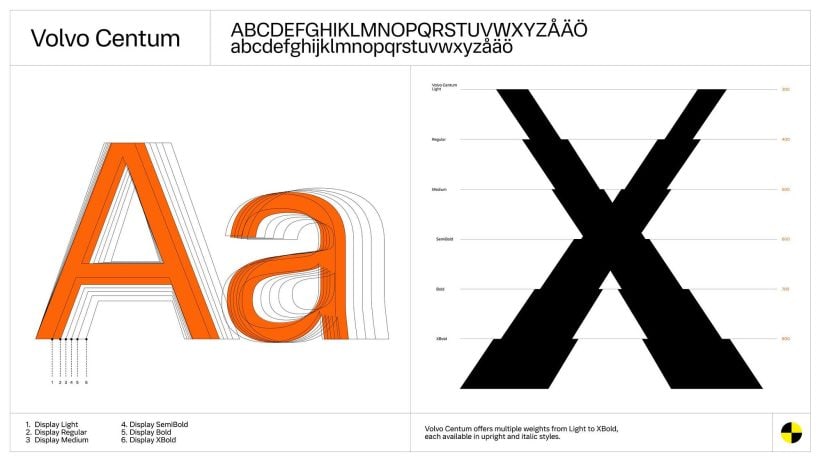
Can a Typeface Be Safe?
As a branding curator, I recommend this investigation into whether type can improve safety. It examines Volvo’s bespoke typeface, its legibility, and the subtle decisions that aid drivers. The piece connects typography, human factors, and vehicle UX with clarity and authority. You will find analysis of contrast, spacing, character shapes, and real world testing. Readers gain practical insights for applying type decisions to safety critical interfaces. It also highlights trade offs between brand tone and functional performance. Designers will appreciate the clear examples and the measured, evidence based approach. It reframes typography as safety engineering.
If you care about brand expression and real world impact, this article is essential. Expect disciplined storytelling, interviews, and thoughtful examples from an industry leading perspective. Teams can adapt the lessons to automotive interfaces, medical devices, or public signage. This is not design theory, it is applied typographic strategy supported by testing. Read it to learn how a subtle brand choice can protect users, and elevate trust. Your product, interface, or visual system may benefit from these nuanced, evidence driven decisions. The case study gives concrete steps and design criteria. Start applying these insights today.